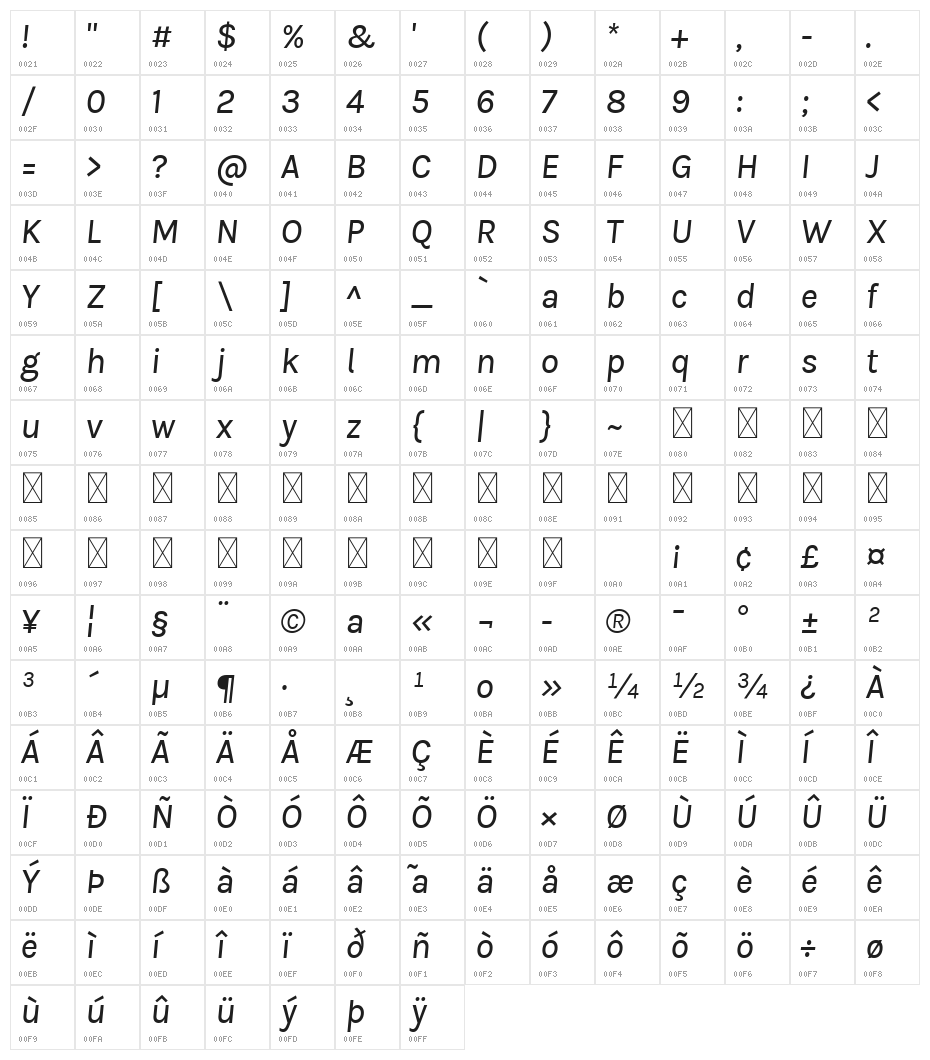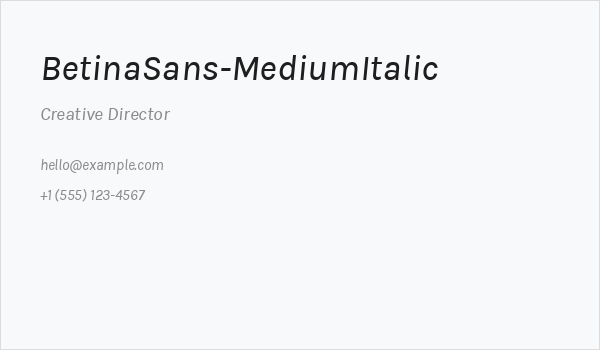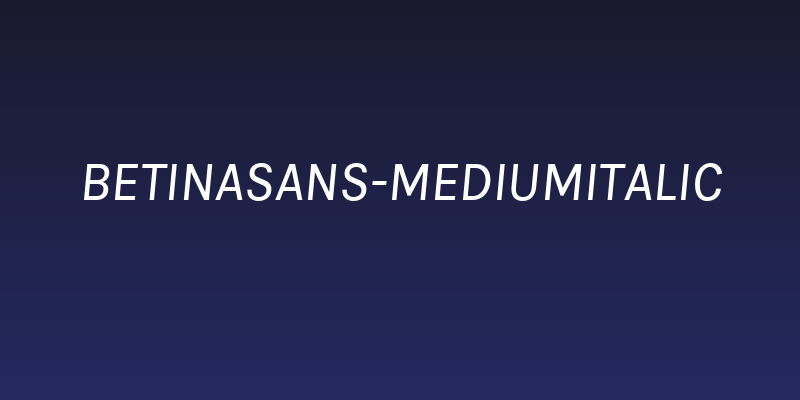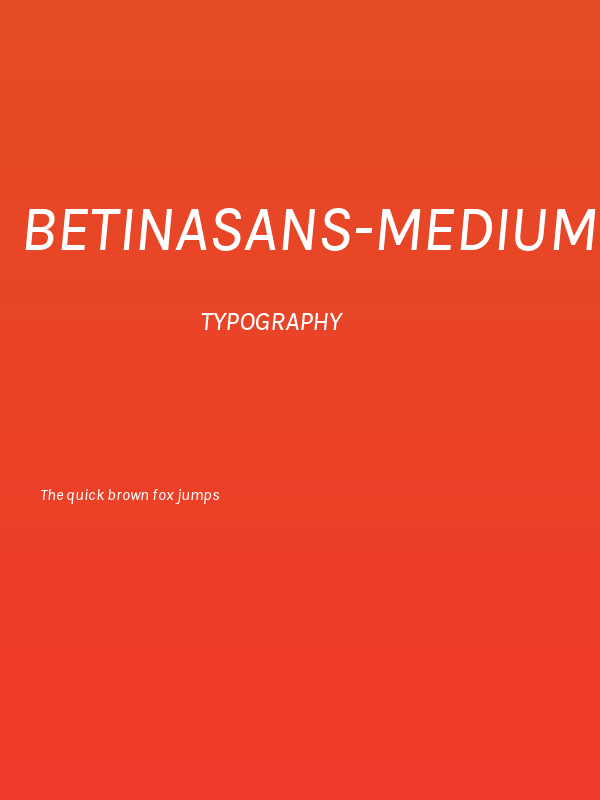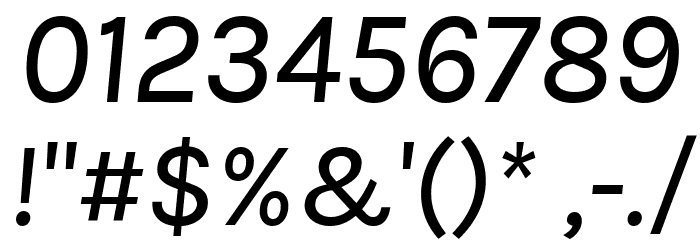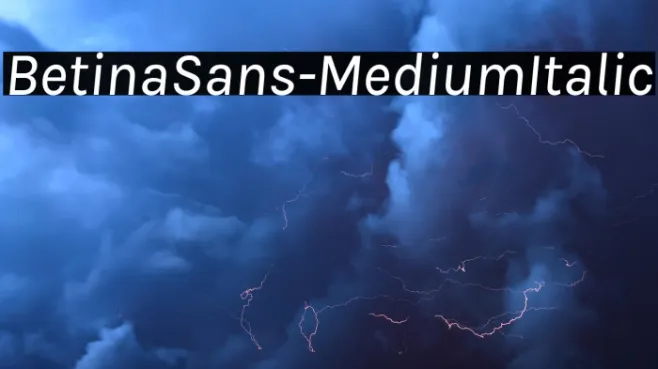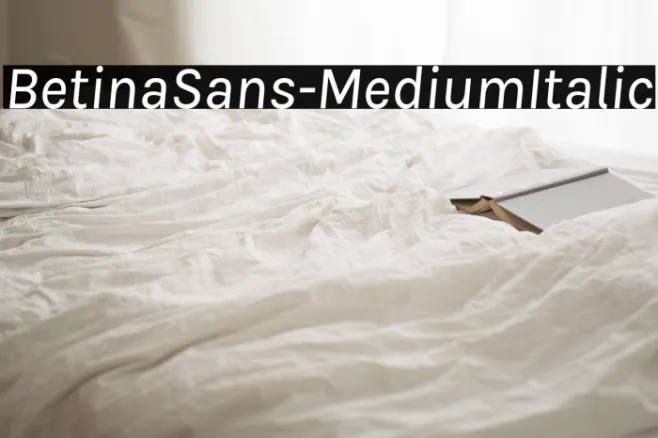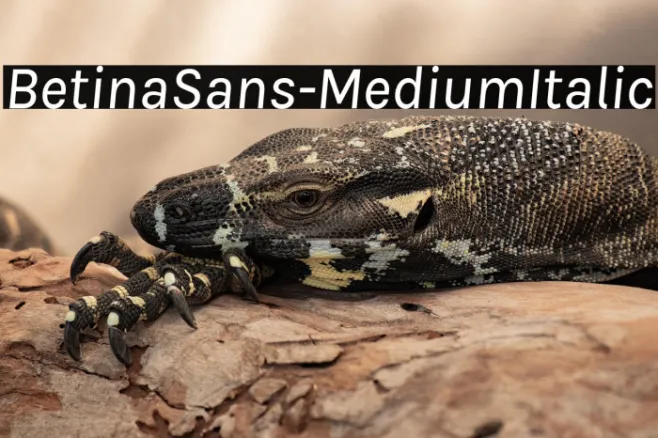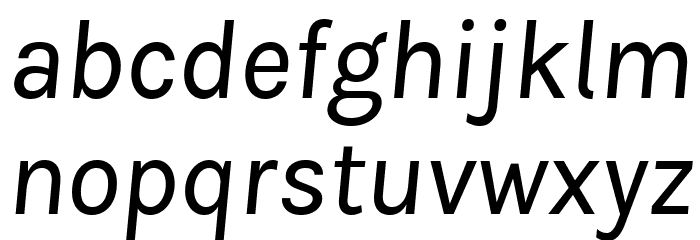
BetinaSans-MediumItalic Font
BetinaSans-MediumItalic Description
This font features a clean and modern sans-serif style with a slight italic slant, giving it a dynamic and forward-moving appearance. The characters are well-proportioned with a consistent stroke width, providing a balanced and harmonious look. The uppercase letters are bold and assertive, while the lowercase letters maintain a friendly and approachable feel. The numerals are clear and easy to read, making them suitable for various applications. Special characters are distinct and well-integrated into the overall design, enhancing the font's versatility.
| Use Case | Headlines, Body text, Logos |
| Proposed Projects | Ideal for branding, advertising, digital interfaces, and editorial design where a modern and approachable look is desired. |